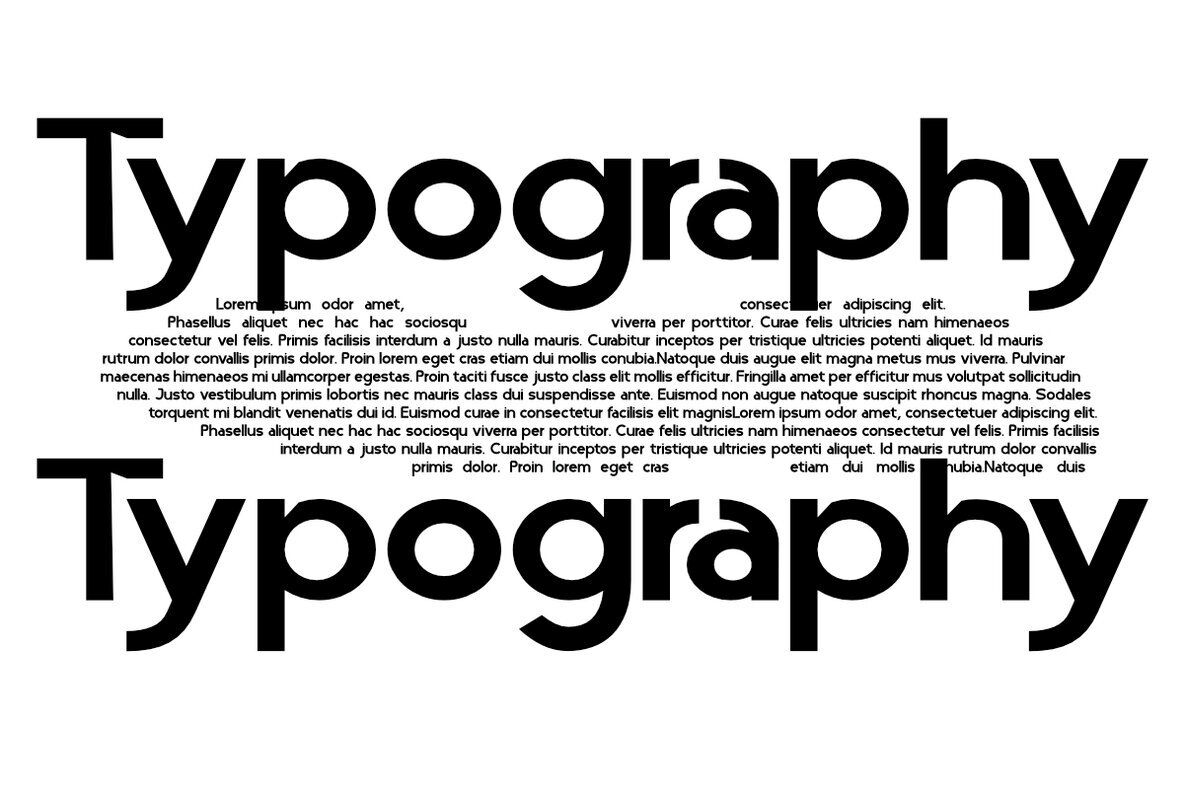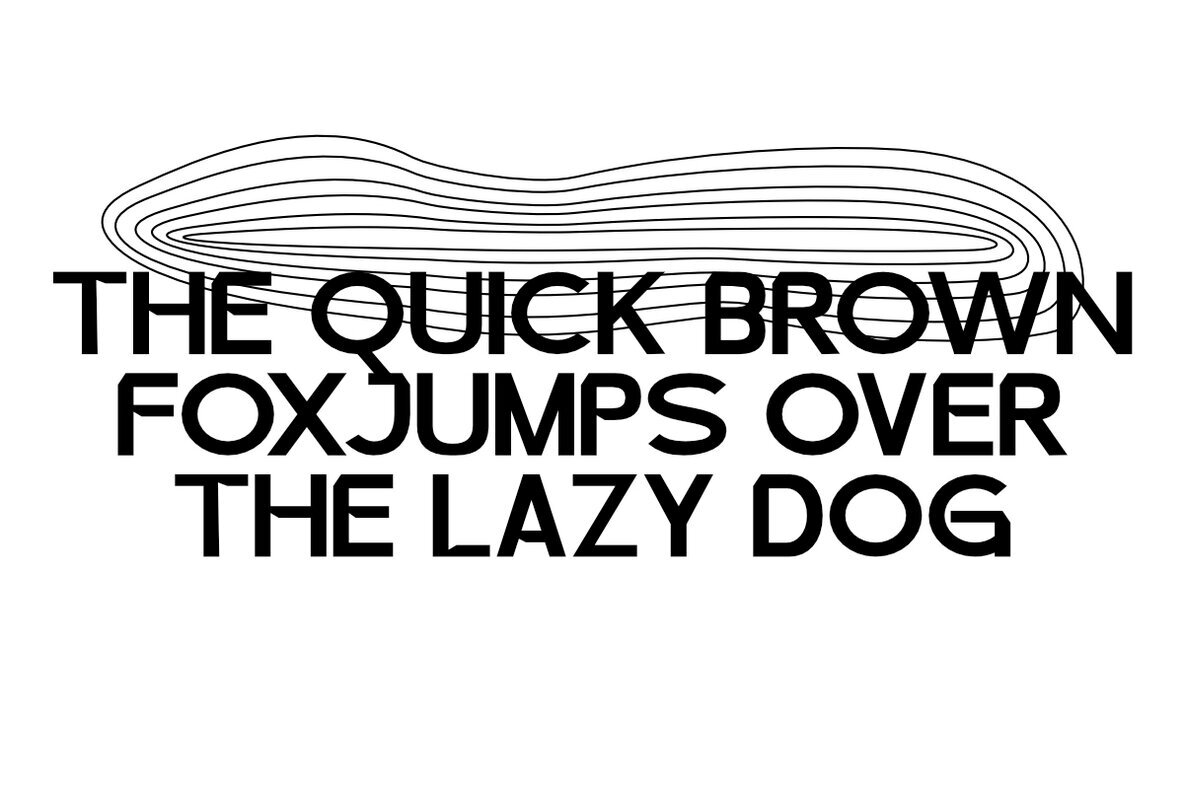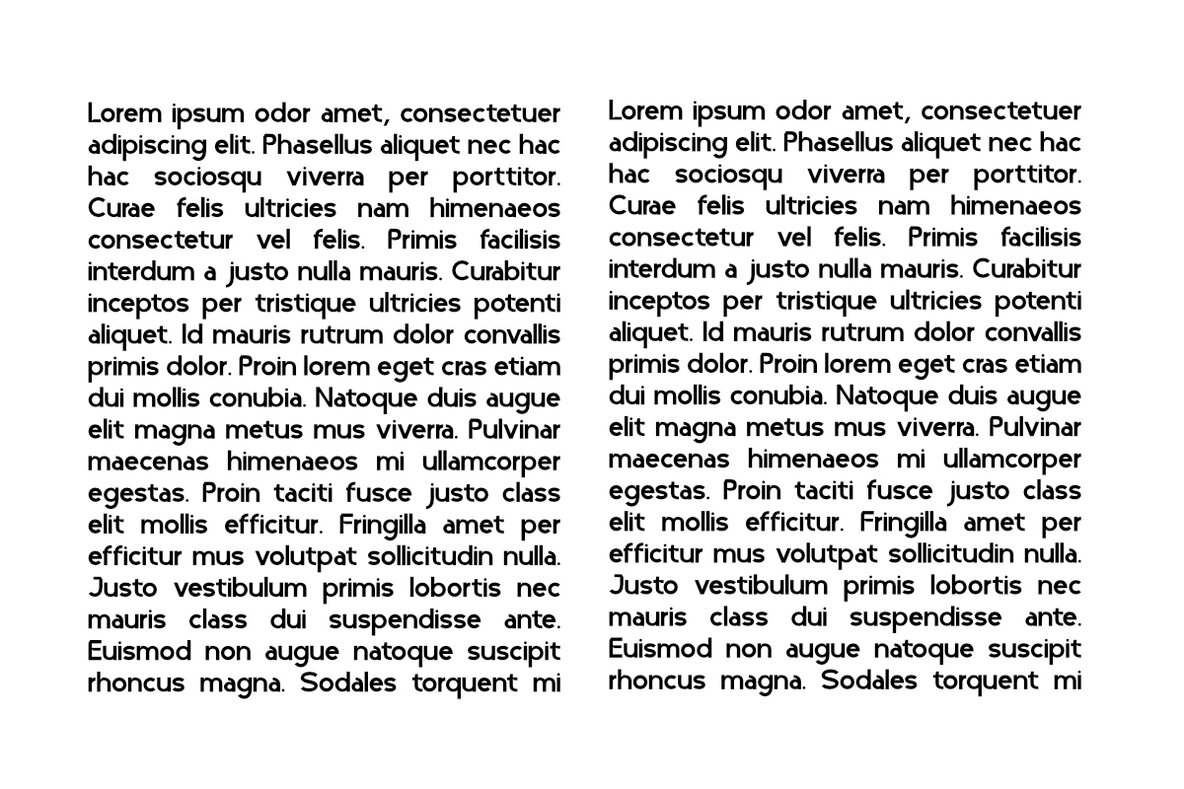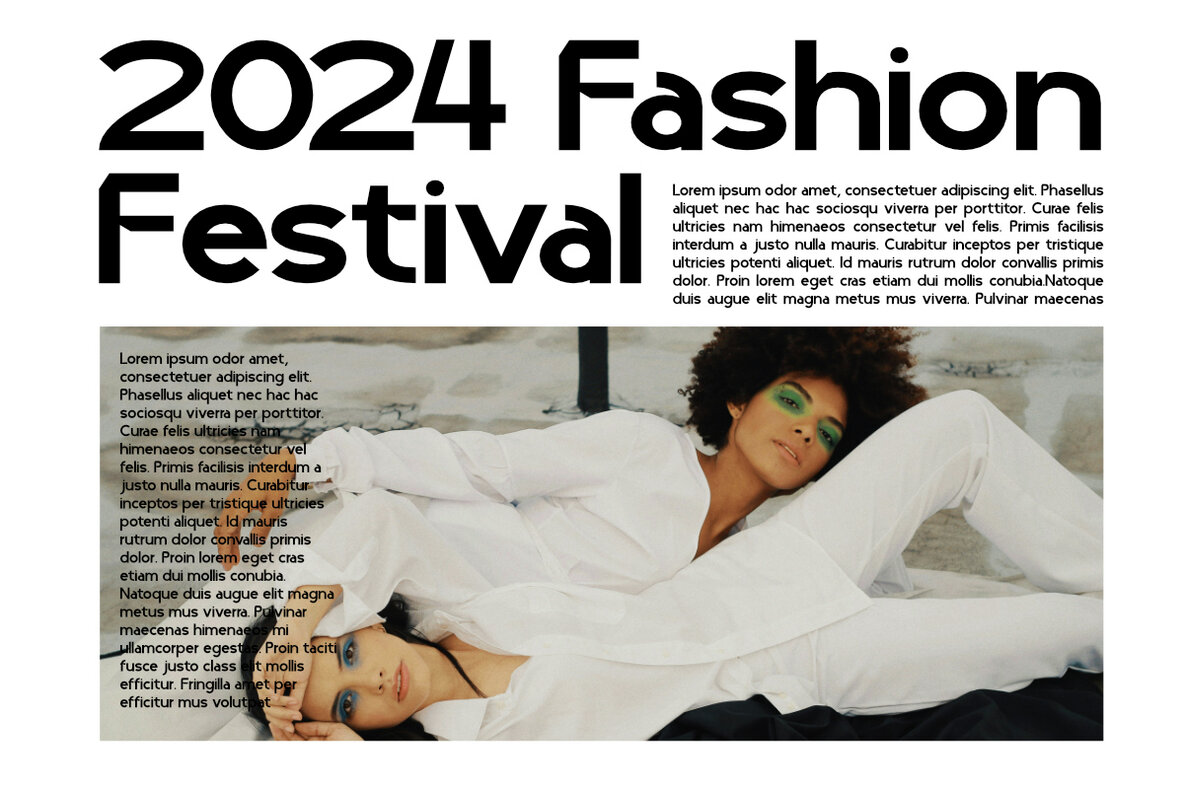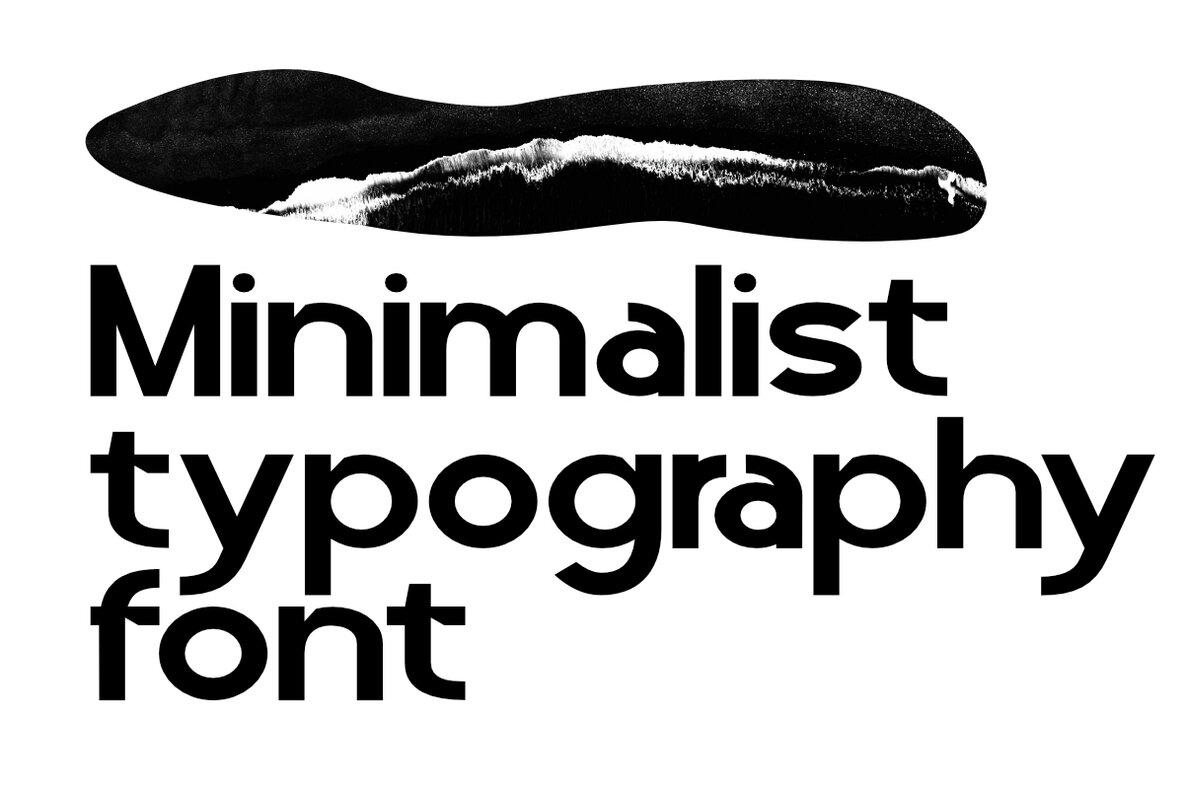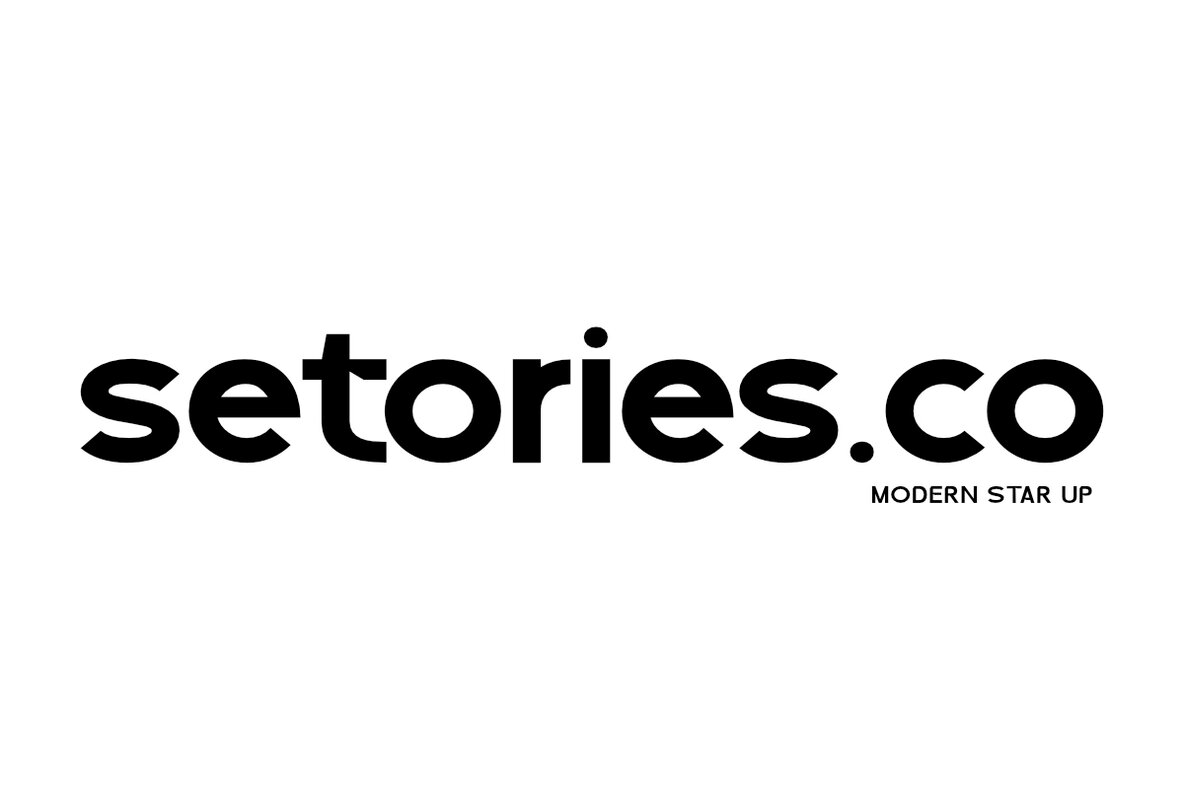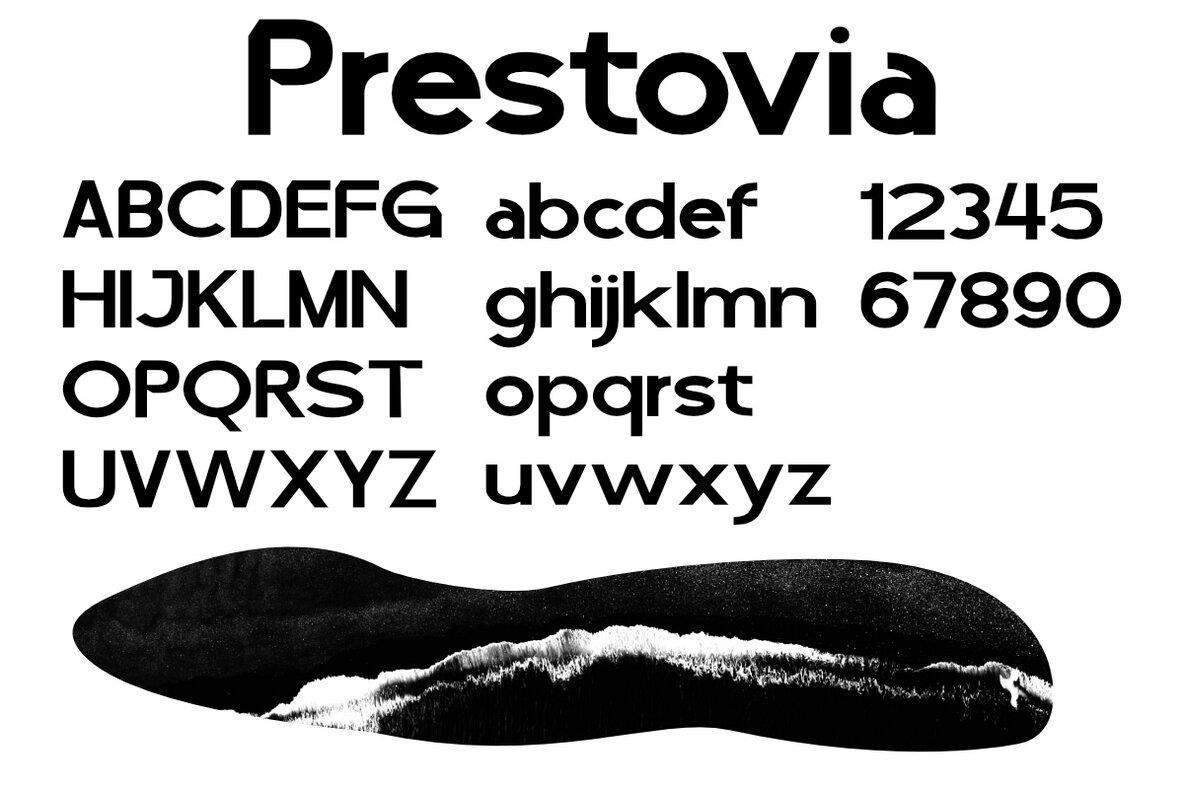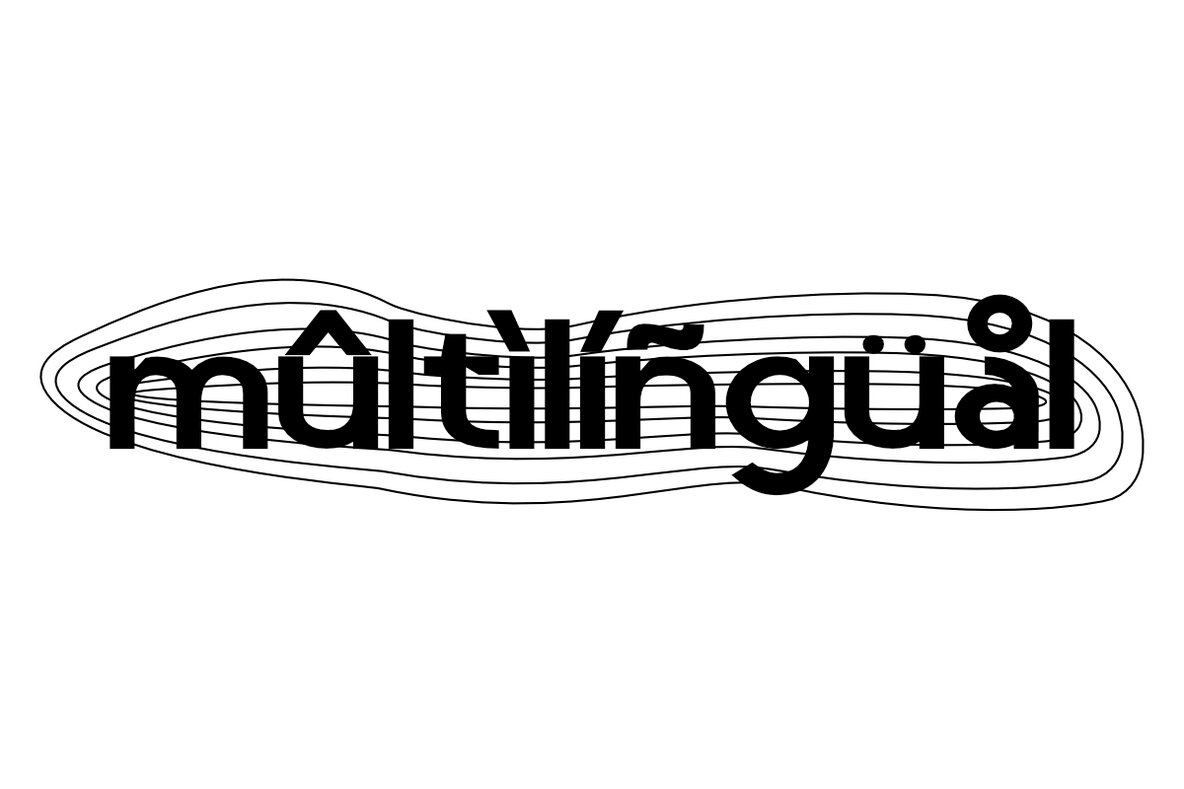
Prestovia Font
Prestovia Regular
Prestovia is an elegant typeface with a modern touch, designed for projects that require a formal and sophisticated aesthetic. Featuring smooth lines, graceful curves, and balanced letter proportions, Prestovia exudes an exclusive character perfect for luxury branding, formal invitations, fashion editorials, and any project that emphasizes prestige and elegance. Each letter is crafted to provide a clean, professional impression while maintaining a subtle artistic flair. Available in multiple weights, Prestovia offers versatility for various design needs, from striking headlines to readable body text. Features: